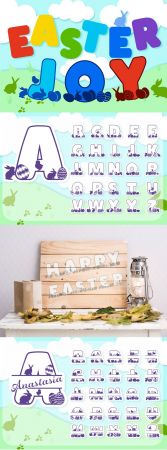
Easter Joy is a font pack I created last year, but I took it down to work on the kerning a little bit and bring it up-to-date.
Presenting you the Easter Joy Font Pack! It comes with three fonts: Easter Joy Base, Easter Joy Regular and Easter Split. Each one has been created from scratch, using as little points as possible to ensure you get the best results with minimum difficulty.
Easter Joy Regular is a lovely Easter font with lots of bunnies, eggs & chicks. It is drawn so the base of the letters would give you the feeling that you're on an Easter meadow.